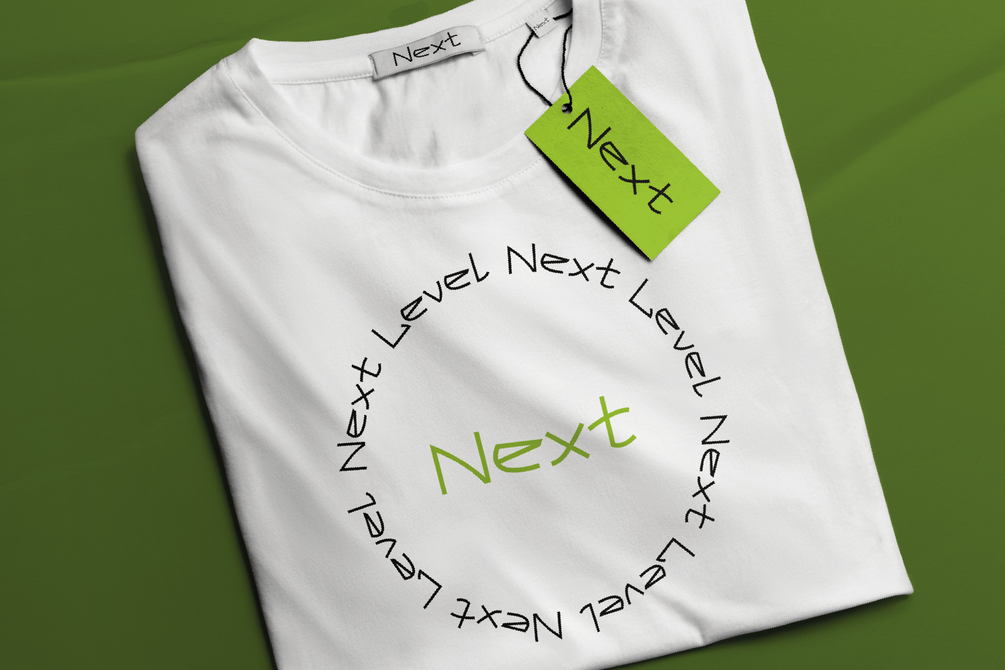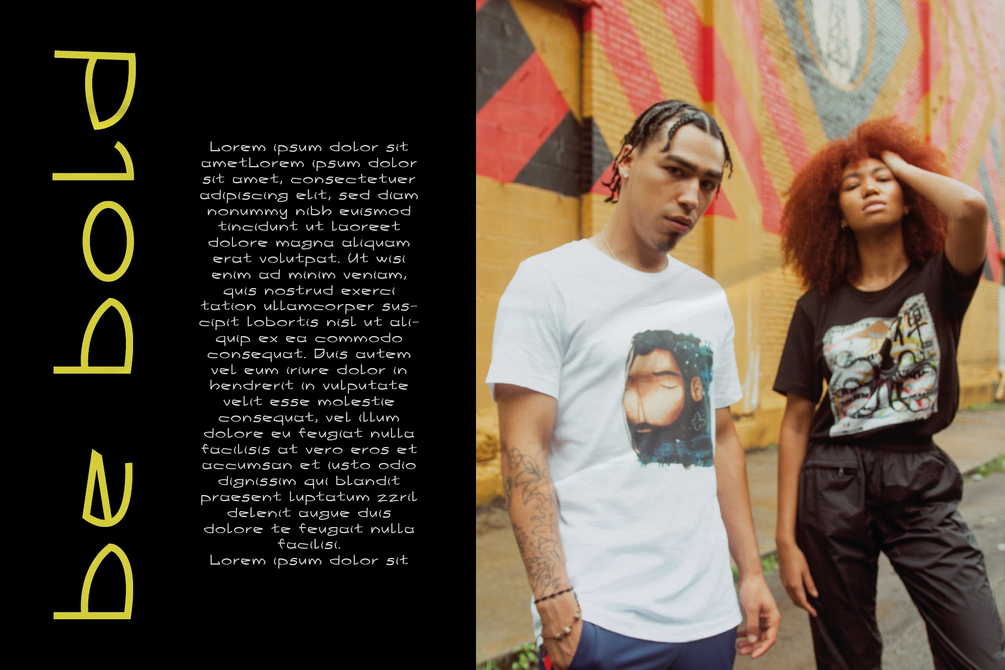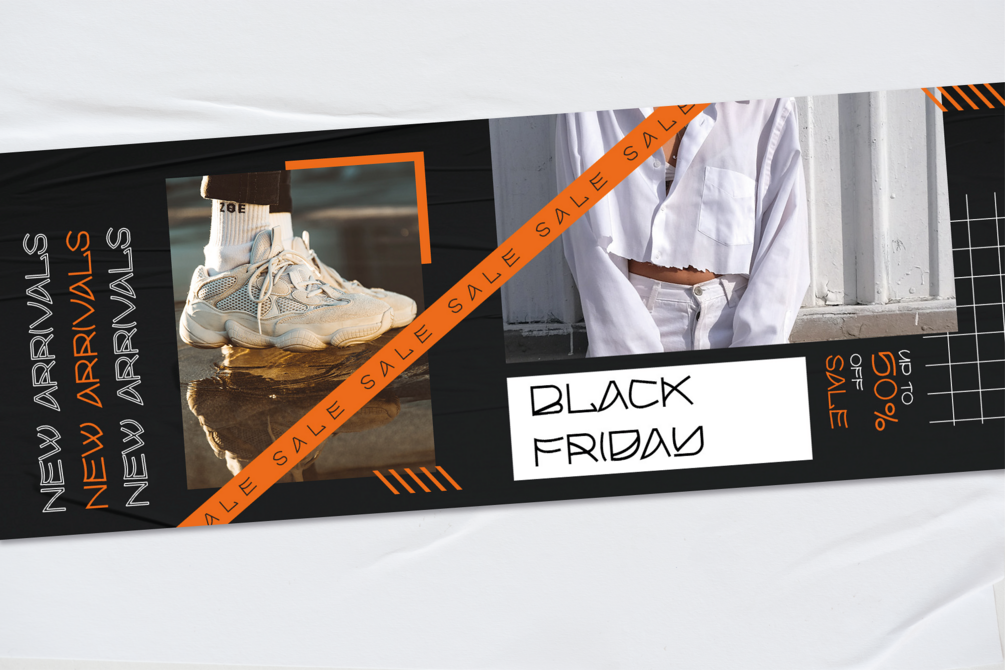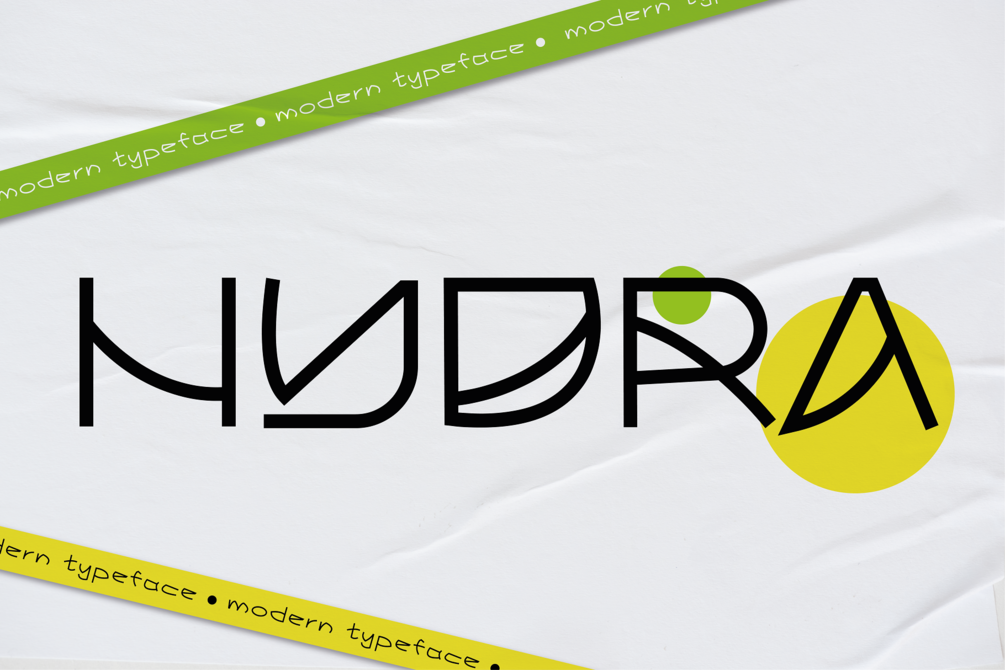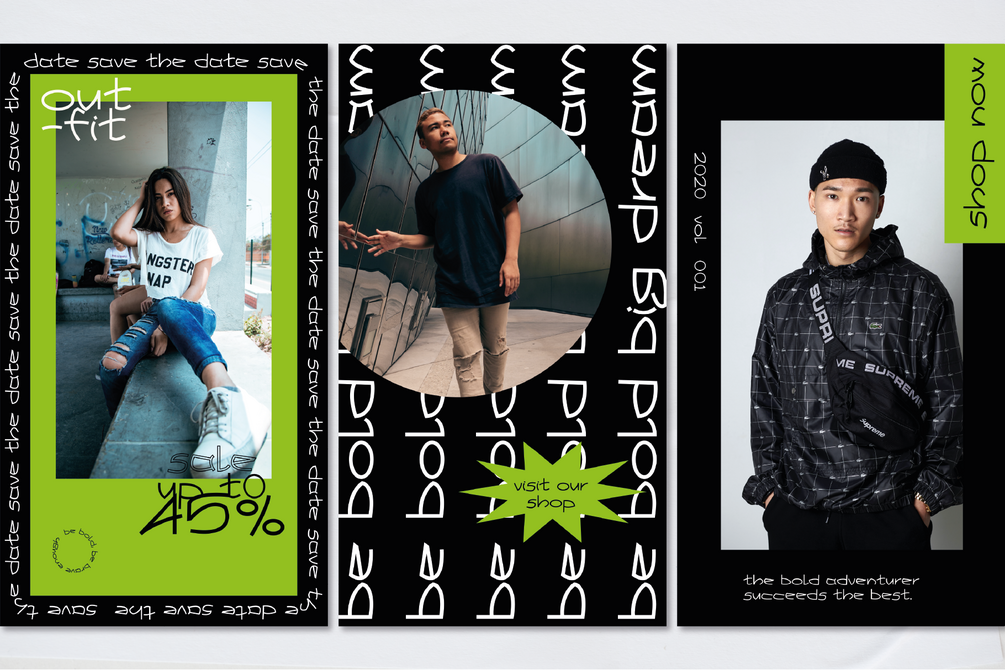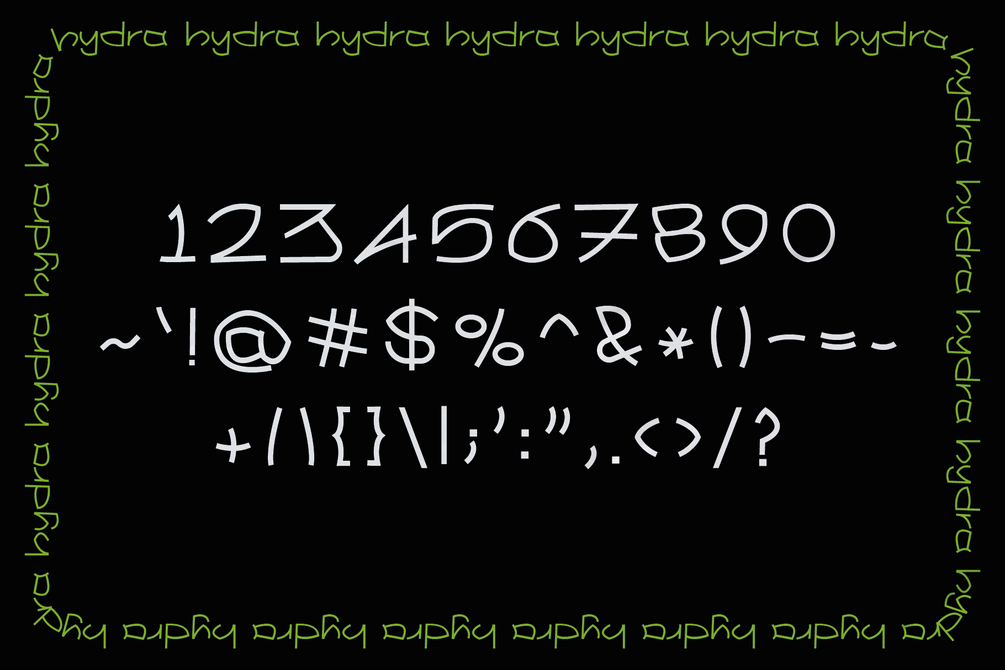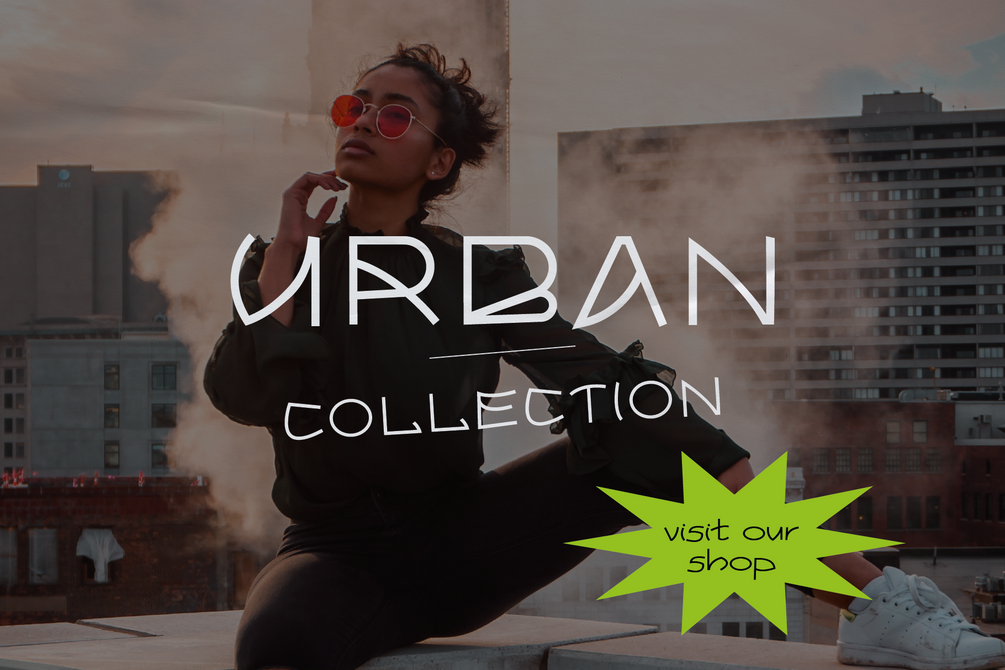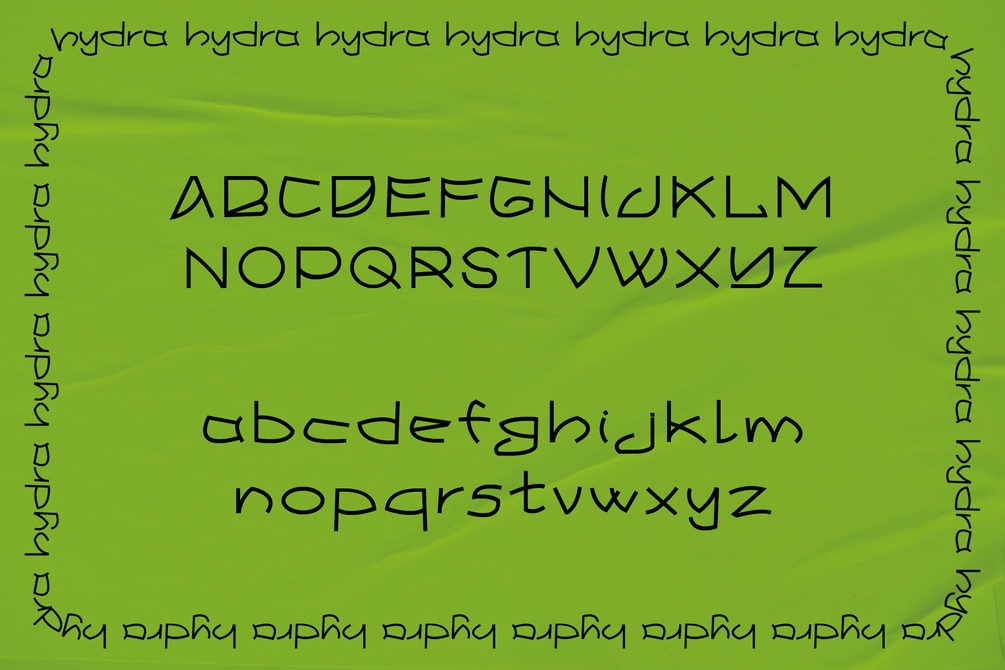
Hydra - Experimental Typeface
Hydra is an experimental typeface that's quirky and hip at the same time. Its intricate letterforms will make your designs standout and grab attention right away. Hydra is ideas for fashion, branding, posters, apparel, packaging, web design, social media, and more. Take your designs to the next level today with Hydra.